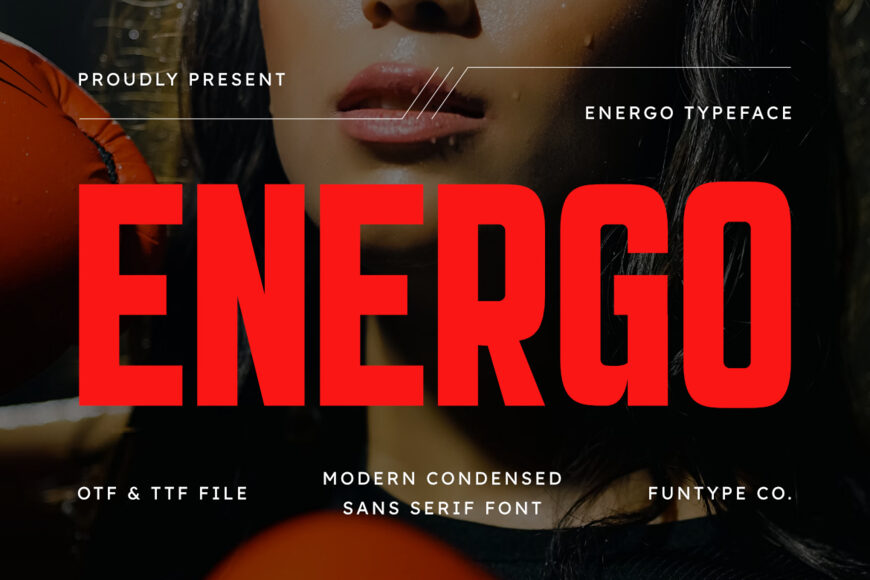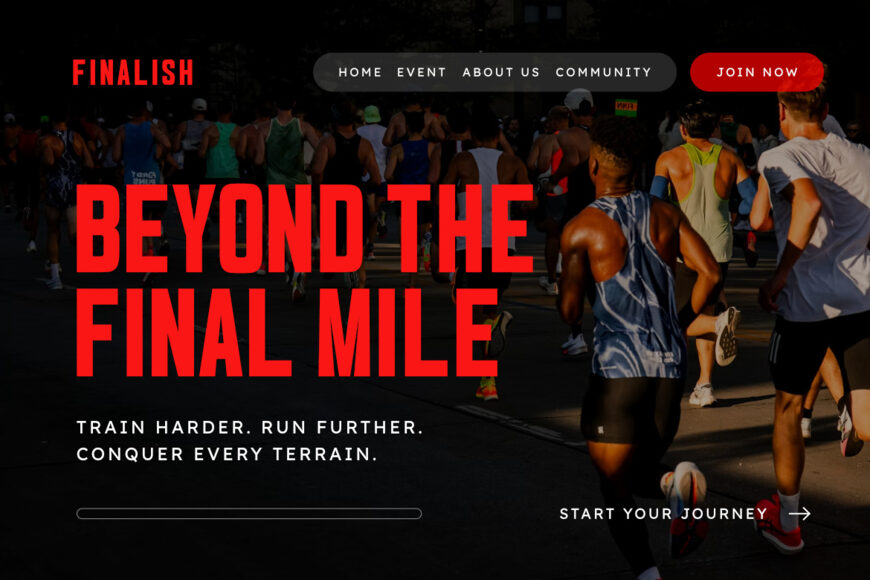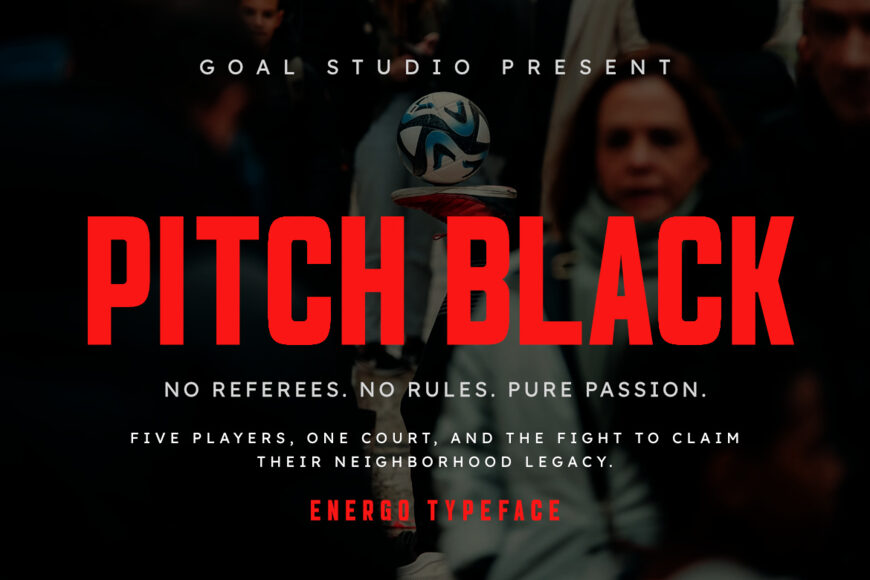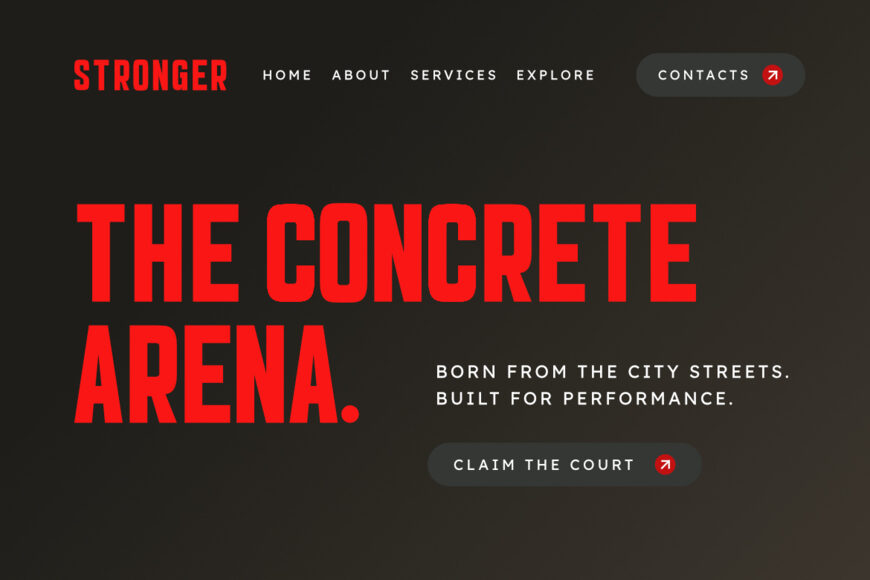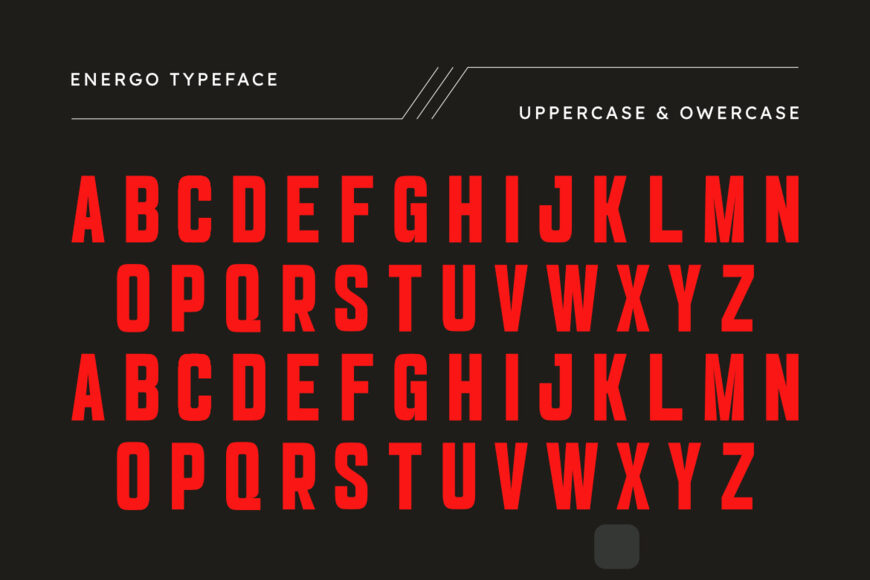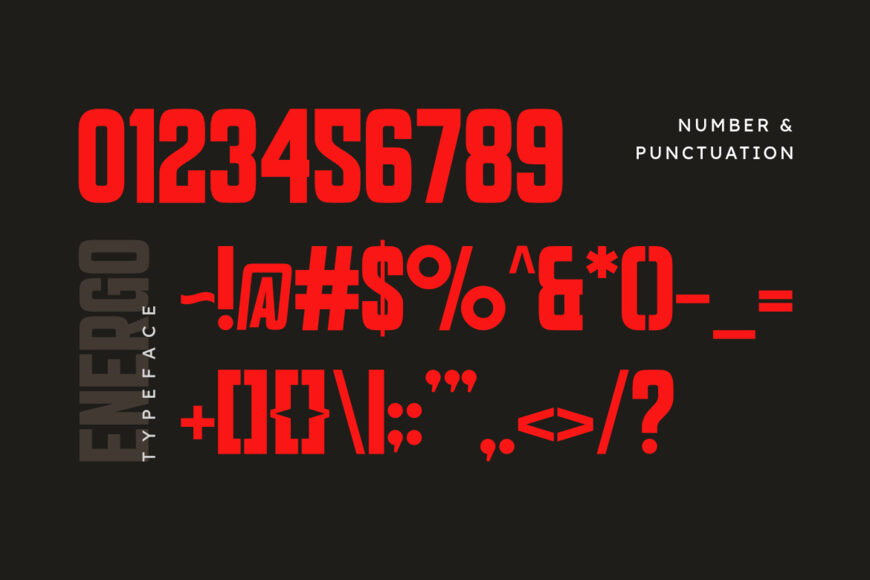
Energo Font
Energo is a high-impact, bold, and modern condensed sans serif font, engineered to bring a powerful athletic presence, tall space-saving geometry, and dynamic display aesthetic to contemporary design layouts.
Featuring an elongated vertical profile, heavy block proportions, and sharp clean lines, Energo introduces a dynamic sports broadcast identity, combat sports promotion, high-energy editorial publishing, and prominent digital media presentation designed to claim absolute visual focus.